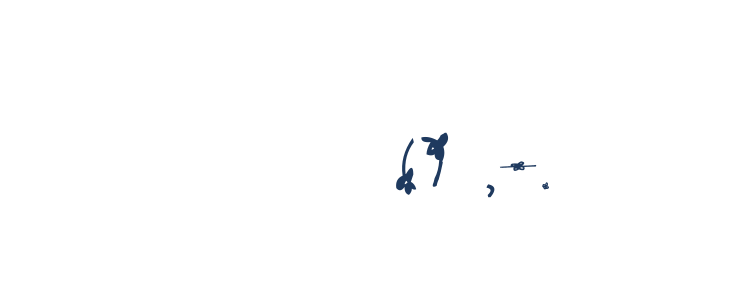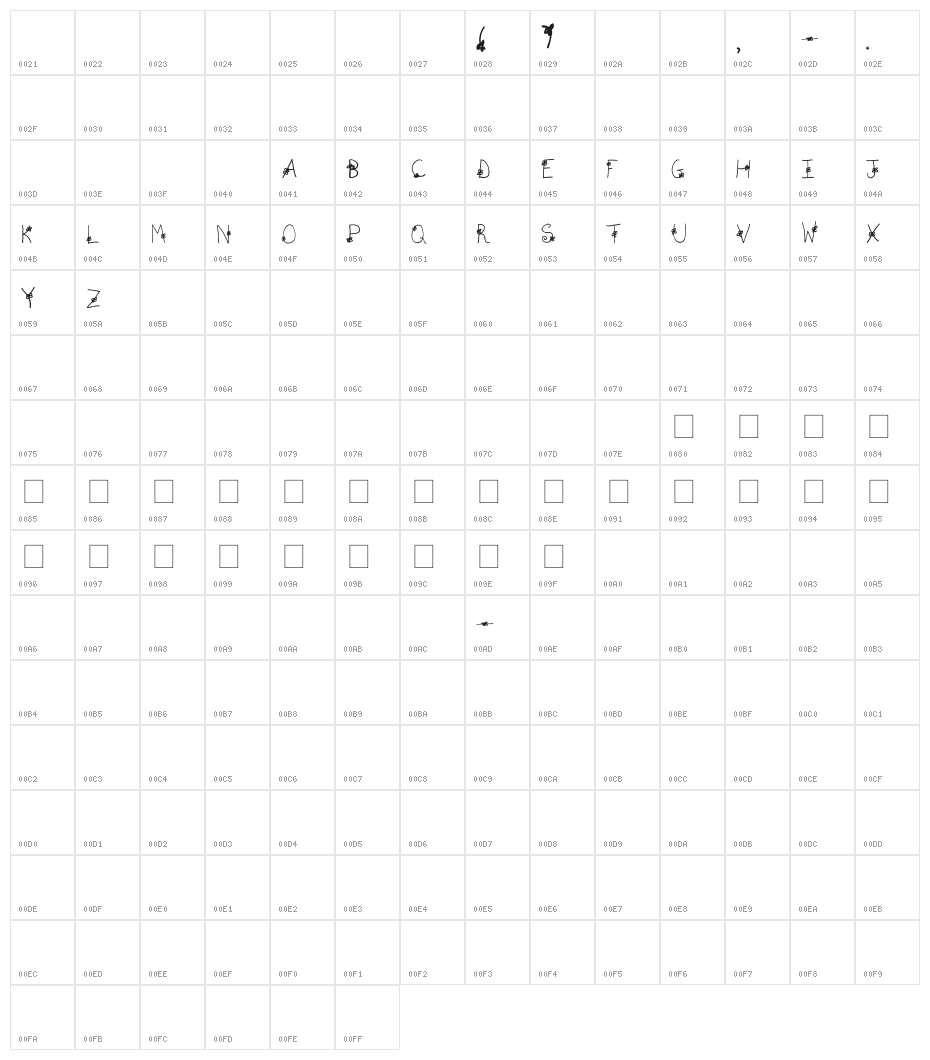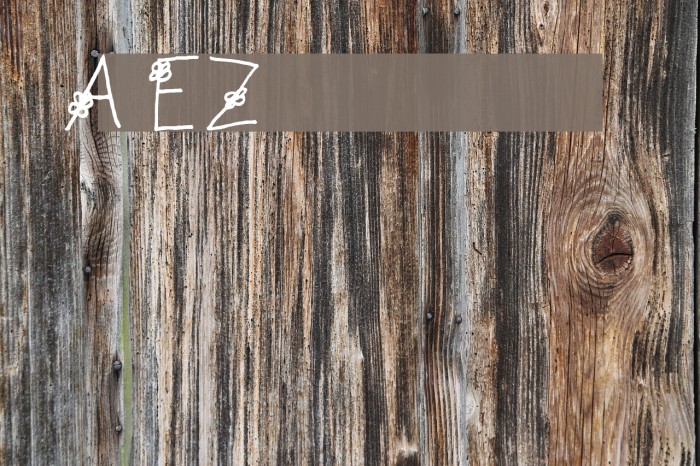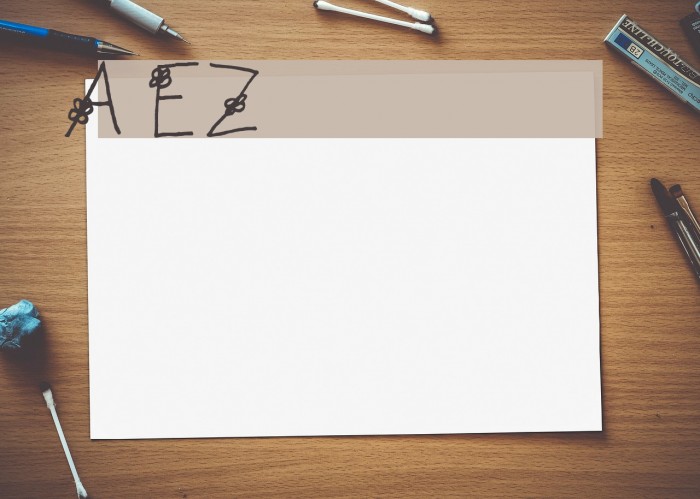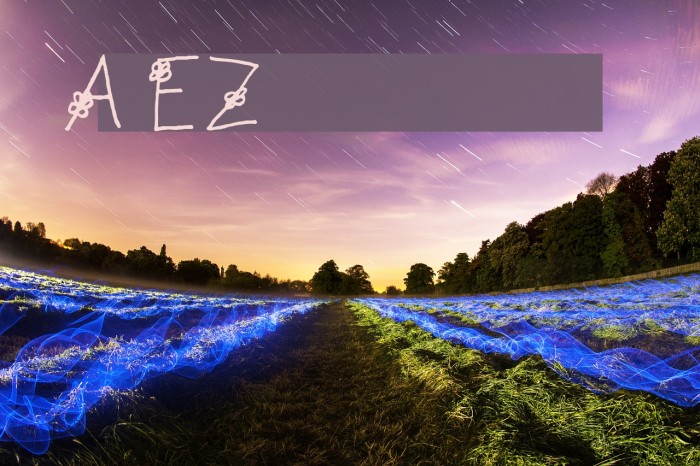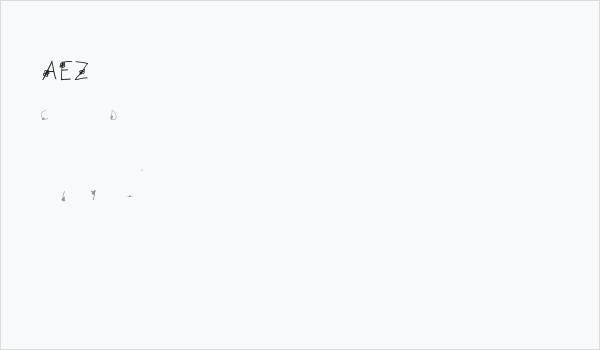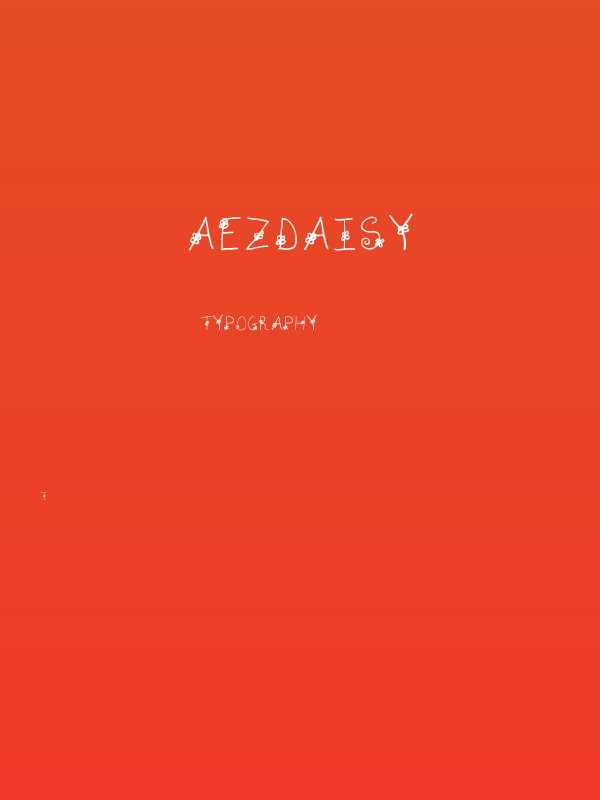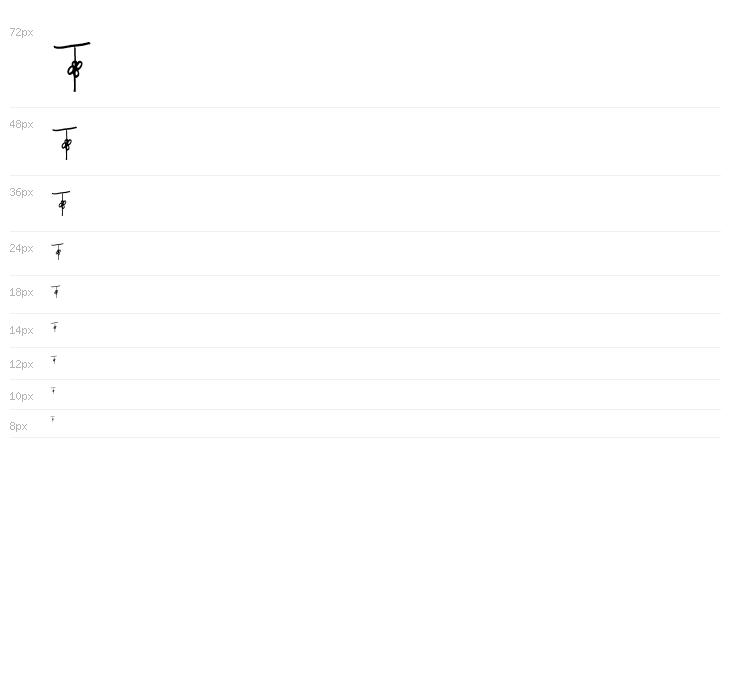
AEZdaisy Font
AEZdaisy Description
This whimsical and playful font features a unique design where each letter is adorned with small floral elements, giving it a charming and decorative appearance. The characters are hand-drawn with a casual, slightly irregular style, adding to its organic and artistic feel. The uppercase letters are more prominent, while the lowercase letters maintain the same floral embellishments, creating a cohesive look. The numbers and special characters are similarly styled, ensuring consistency across all glyphs. This font exudes a sense of creativity and fun, making it ideal for projects that require a touch of personality and flair.
| Proposed Projects | Ideal for greeting cards, children's book illustrations, creative invitations, and playful branding projects. |